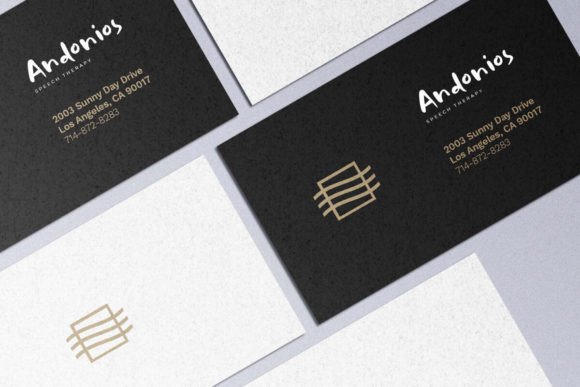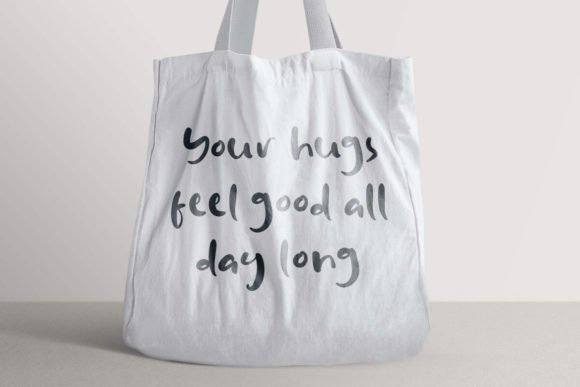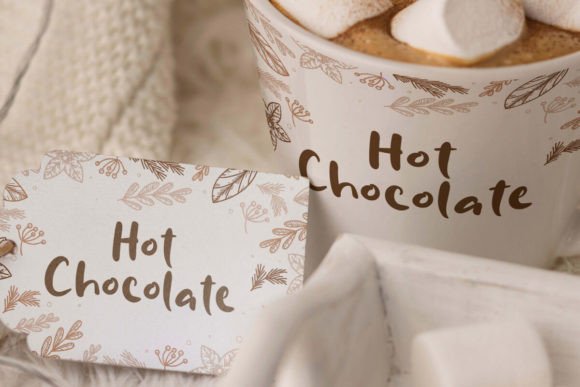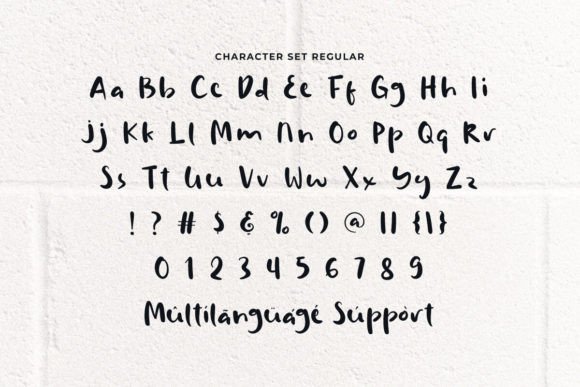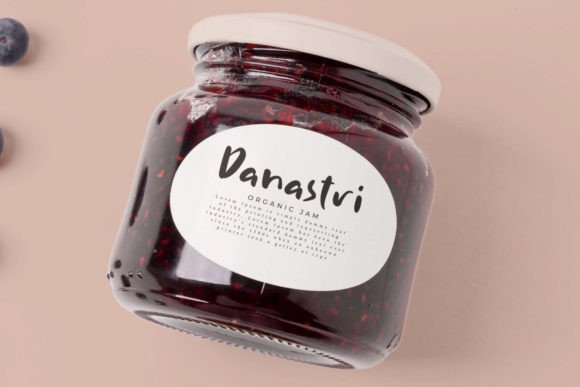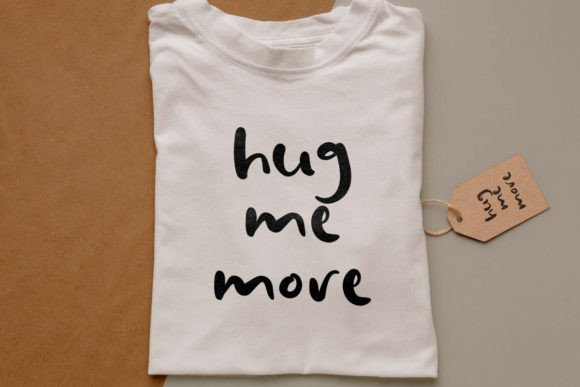
Enter Hug Me More Font, a modern, playful, and bold display font designed to put a smile on your face and a spring in your step. With its unique, cute shape and infectious energy, this font is sure to make your designs stand out. Whether you’re creating an eye-catching advertisement, a custom logo, or a social media graphic, Hug Me More Font is the perfect companion to bring your vision to life.
- Unique Characteristics: Hug Me More Font features a playful, handwritten design with unique letterforms and flourishes, adding a touch of personality to any text-based design.
Hug Me More Font Review
I recently had the chance to work with the Hug Me More Font and I have mixed feelings about it. Here’s my honest review.
- The font’s unique and playful style is perfect for creating a friendly and approachable atmosphere.
- The bold and condensed font weights are great for headings and titles, making it easy to create a clear visual hierarchy.
- The font’s inconsistent spacing and kerning can make it difficult to read in certain contexts.
- The font’s lack of support for Asian languages and right-to-left scripts may limit its use in global projects.
- The font’s bold and condensed styles can be a bit overwhelming in certain designs, requiring careful balancing.
The Hug Me More Font is a fun and playful addition to any design project, but it requires careful consideration to balance its unique style with other design elements. With some adjustments to spacing and kerning, I think this font has the potential to be a great choice for designers looking for a friendly and approachable aesthetic.
The “Hug Me More Font” is perfect for creating eye-catching headlines, social media posts, and marketing materials.
Some common use cases include:
- Social media posts and captions
- Marketing materials and advertisements
- Headlines and titles for blogs and websites